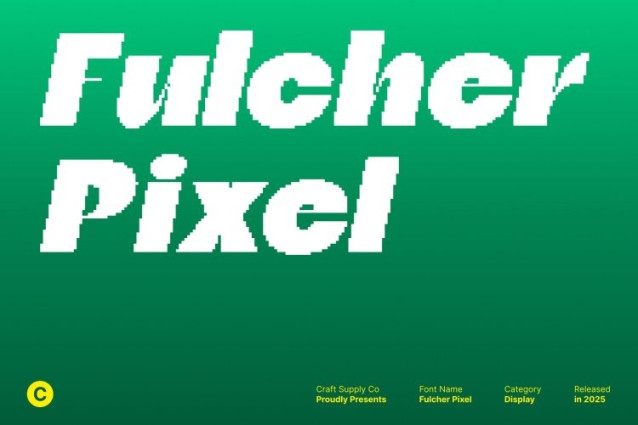
Fulcher Pixel Font
Fulcher Pixel Font This is a modern sans-serif font designed with strong, crisp lines that convey clarity and confidence. Its bold shapes ensure maximum readability while maintaining a sleek, contemporary appearance, making it perfect for designs that demand both precision and style.
Funky Pixel Flair for Unique Personality
The pixel-style detailing gives a trendy, digital-inspired edge. Combined with its funky, creative touches, the font adds a playful and distinctive character to your designs, setting your text apart from conventional typography.
Perfect for Logos, Posters, and Branding
This font excels in creative applications where visibility and style are key. Whether for logos, posters, branding projects, or digital media, its bold lines and pixel-inspired shapes deliver a modern, eye-catching presence that resonates with contemporary design trends.
Trendy, Distinctive, and Versatile
Blending modern sans-serif clarity with pixelated flair, creates a visually striking balance of professionalism and creativity. Its unique design makes it ideal for designers seeking a font that is both trendy and versatile, capable of enhancing a wide range of projects with a bold, modern aesthetic.